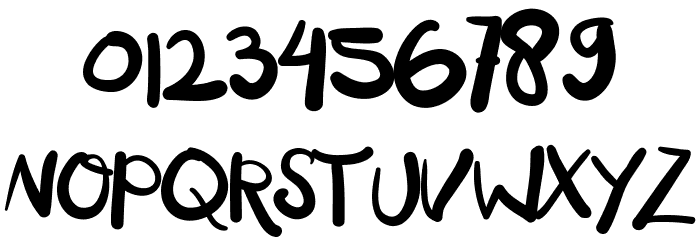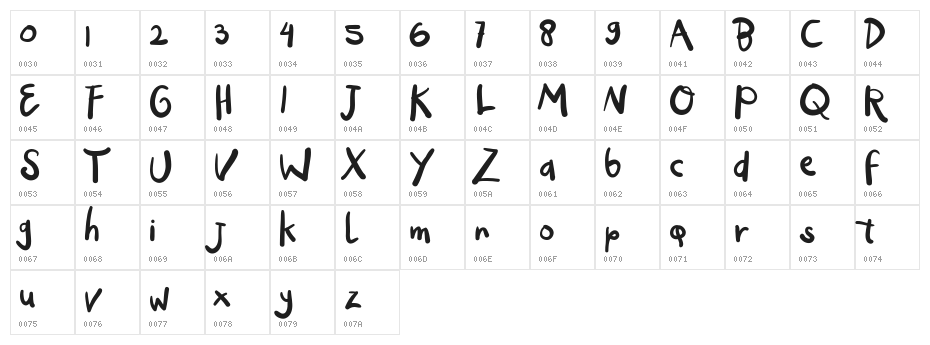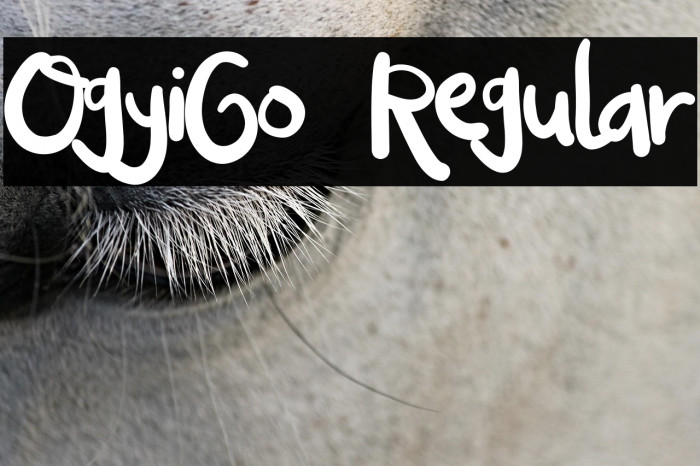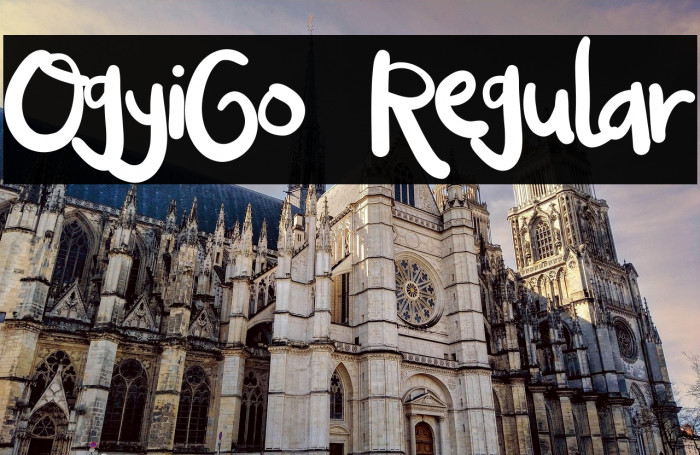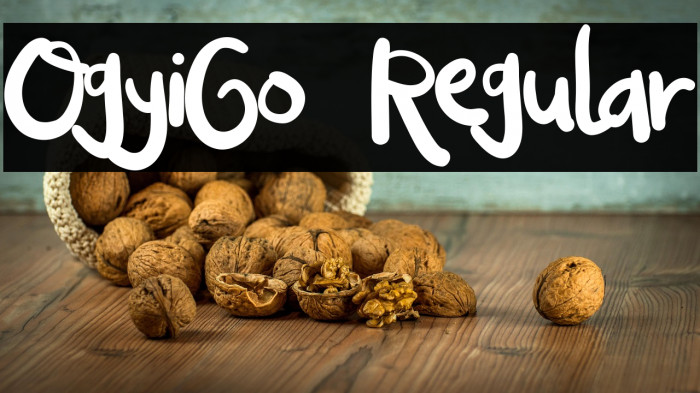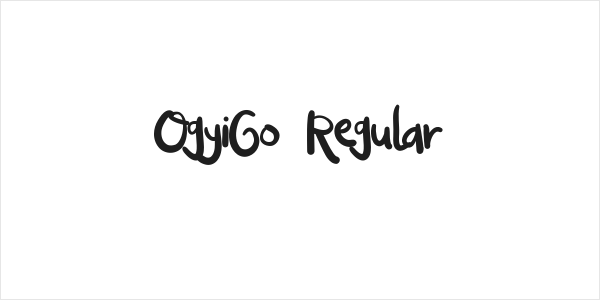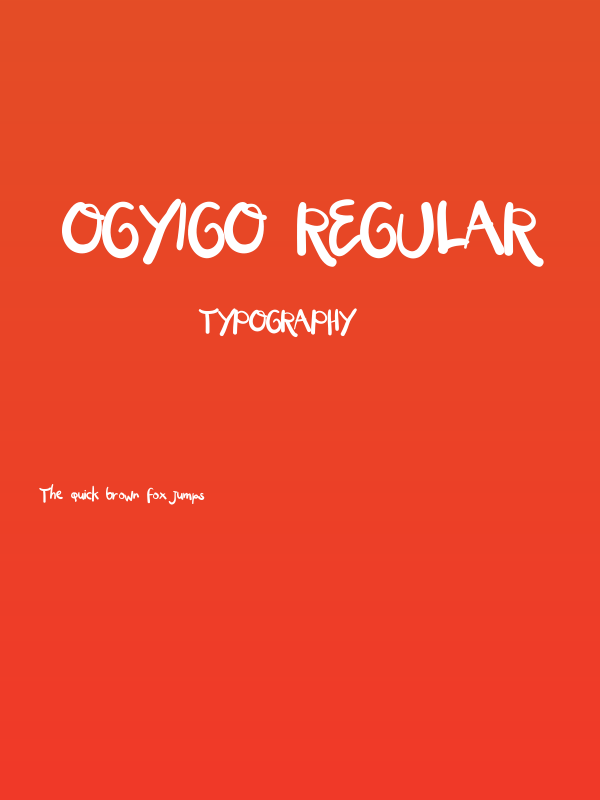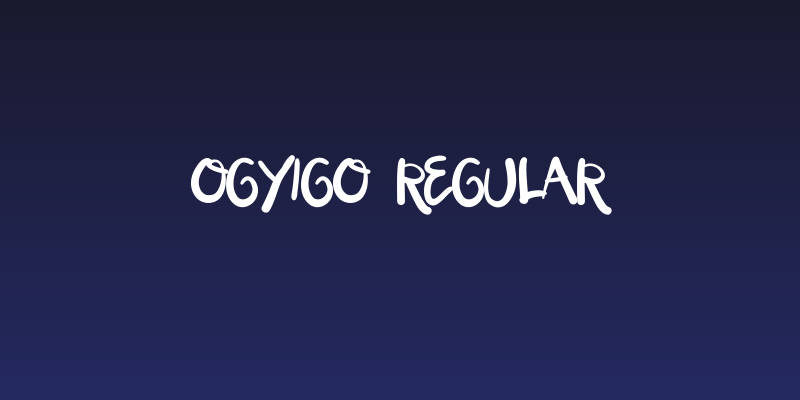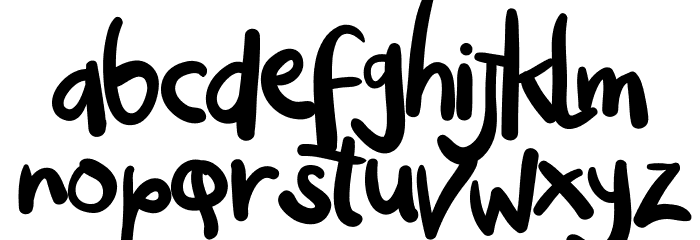
OgyiGo Regular Font
OgyiGo Regular Description
This playful and energetic font features a handwritten style with bold, rounded strokes that give it a lively and informal appearance. The characters are slightly irregular, adding a sense of whimsy and personality. The uppercase and lowercase letters maintain a consistent flow, while the numbers and special characters complement the overall design. Its unique charm makes it suitable for projects that require a personal touch or a fun, casual vibe.
| Proposed Projects | Ideal for greeting cards, children's books, playful branding, and casual invitations. |